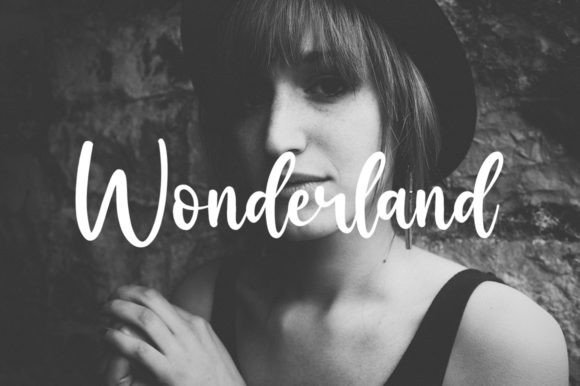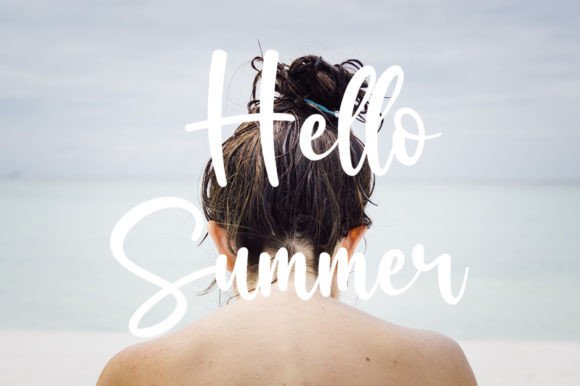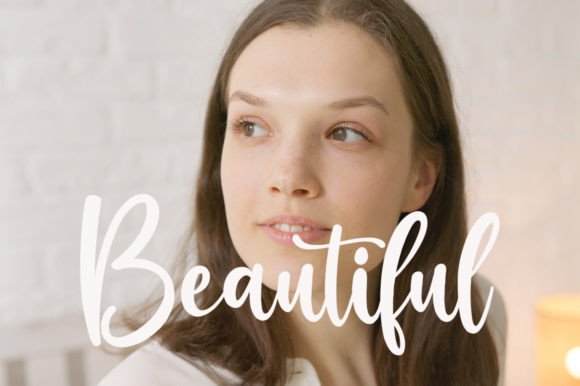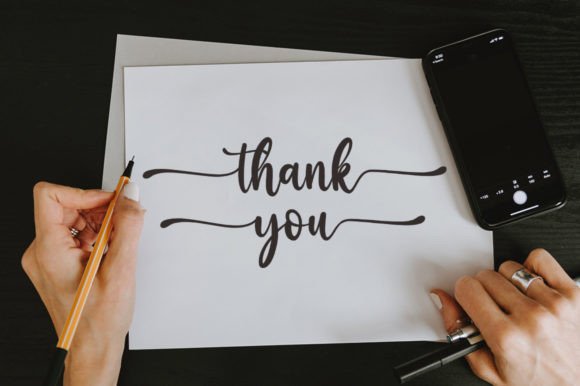
Antariksa Font
About Antariksa Font
Antariksa is a simple handwritten font. This versatile font has a wide spectrum of applications ranging from greeting cards to headlines and is guaranteed to add a simple and natural feel to your next project!